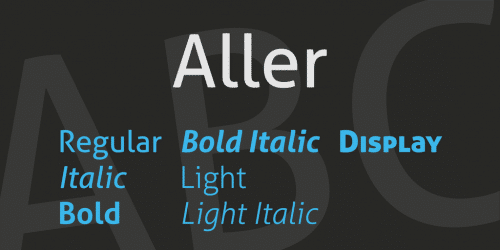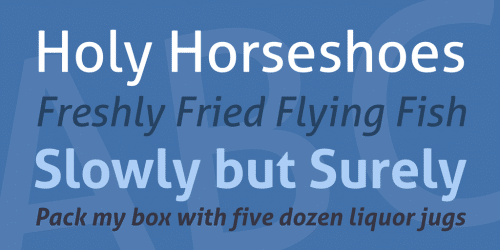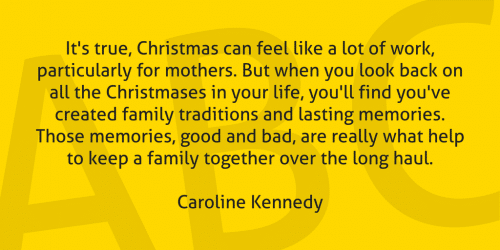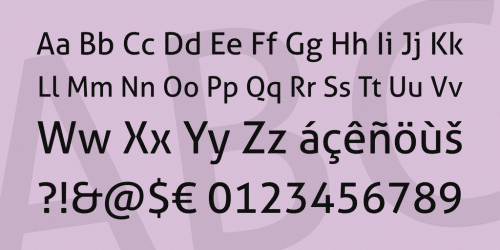
The Aller font family was created in 2008 for the Danish School of Media and Journalism, with the kind sponsorship of publisher Aller. From its release it was made available for all to use, for up to 25 users within each organization, for free from the DSMJ’s website. As the DSMJ’s distribution comes to an end, we’re delighted to carry on the principle with the Free Licence for Aller Standard Edition.
- Designer: Dalton Maag Ltd